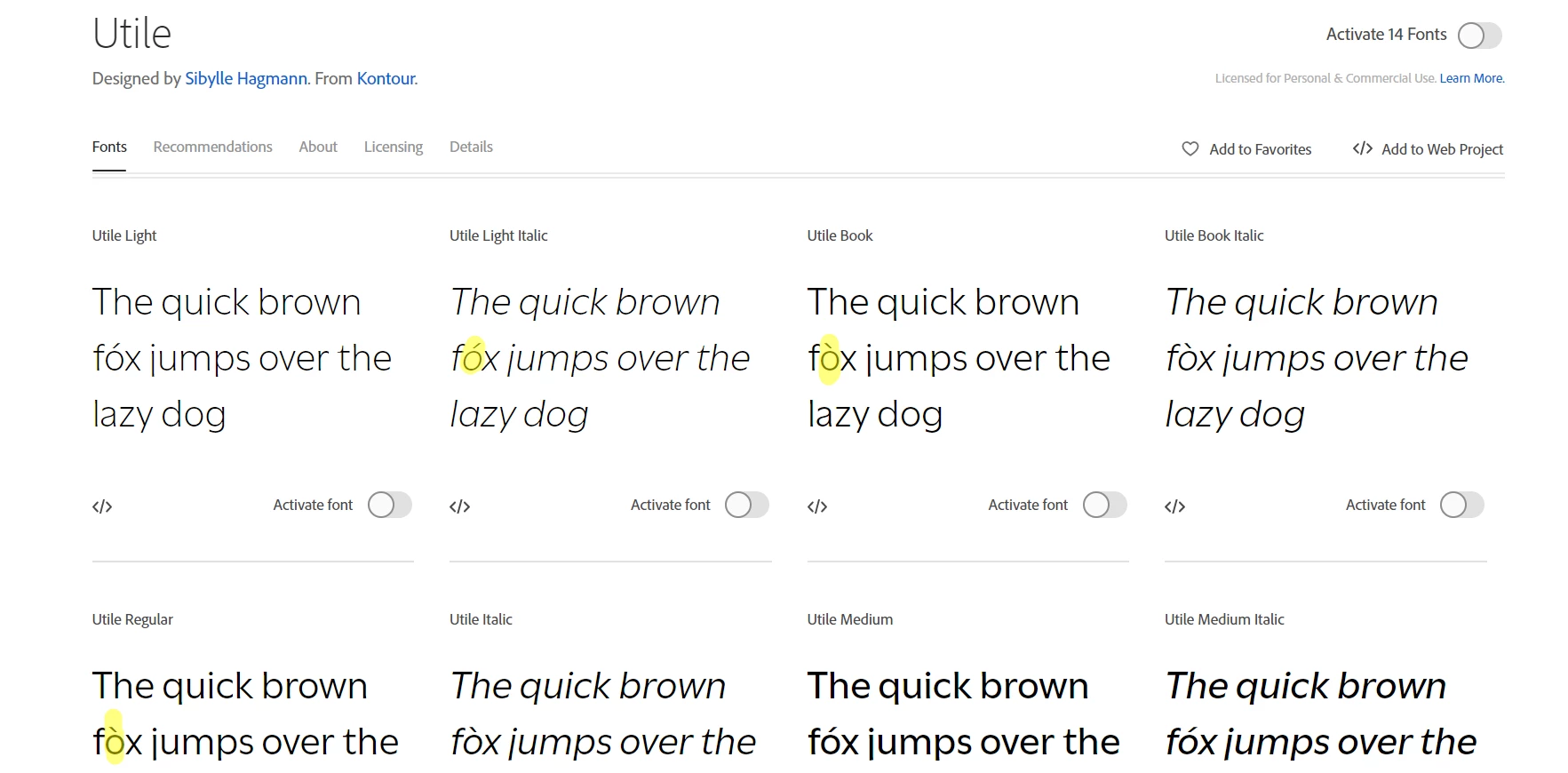
The Utile font has a mistake
Hi! Just wanted to bring to your attention that the UTILE font on adobe has the following error.
When you type a "ó" it will display as "ò", facing the wrong way. I would love if it were fixed or know how to fix it because I am a spanish speaking person and i need to use that letter.
I see there is a difference in the symbol depending upon the font variation we are using. Please see the attached image-